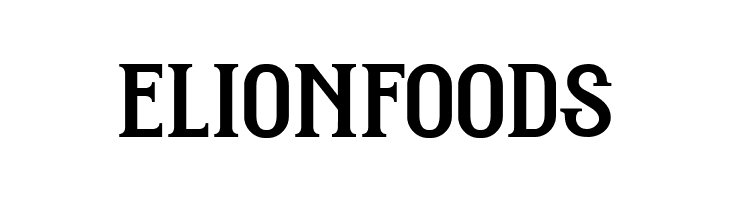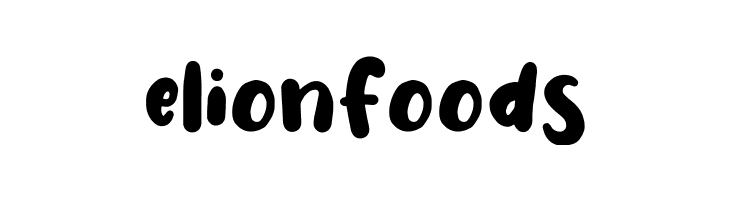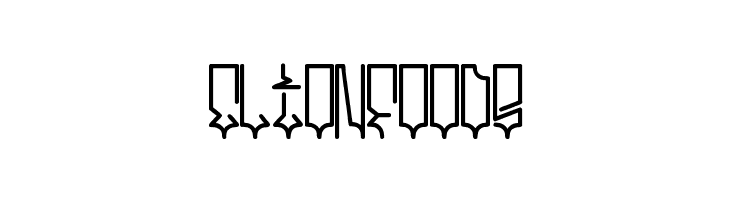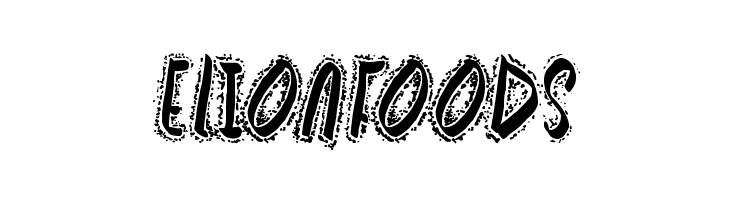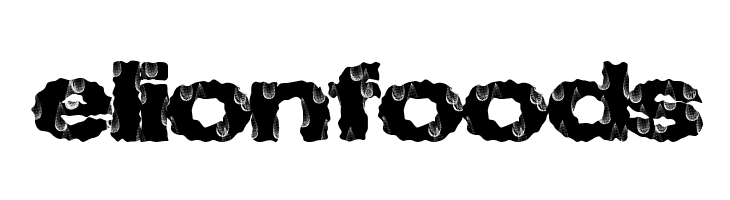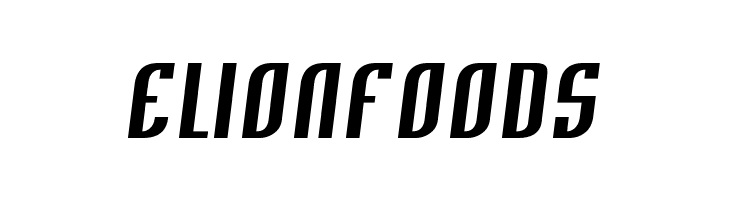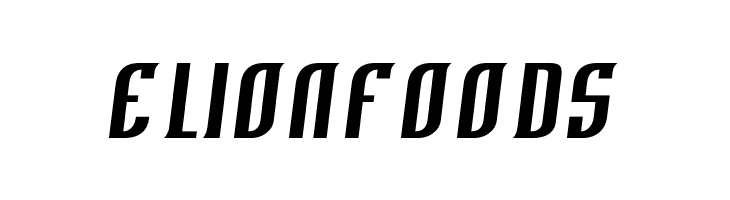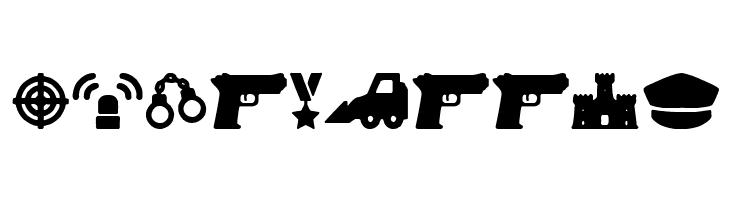
A bold, hand-drawn font with a graffiti-like texture and playful style.
A whimsical and playful font with curly, decorative letterforms.
A whimsical, hand-drawn script font with playful curves and artistic flair.
A bold, industrial font with characters enclosed in square frames connected by chains.
Ornate, heraldic shield-themed decorative font with detailed illustrations.
A bold collection of military-themed icons with consistent style and strong visual impact.
A bold, hand-drawn font with intricate patterns and a playful, artistic style.
A collection of whimsical, character-based designs resembling cartoonish warriors.
A decorative dingbat font of whimsical warrior and tribal characters.
A bold, playful font with thick strokes and rounded edges, ideal for impactful designs.
A playful, bold font with rounded, hand-drawn characters.
A bold, playful handwritten font with rounded strokes and a casual feel.
A bold, hand-painted style font with a lively and energetic appearance.
A bold serif font with sharp serifs and a modern classic appeal.
A whimsical and playful font with decorative swirls and artistic flair.
A decorative typeface featuring intricate patterns and cultural motifs within each character.
A bold, geometric font with rounded edges and a modern, robust appearance.
A bold, geometric font with a modern, futuristic design.
A pixelated, grid-based font with a retro digital aesthetic.
Pixelated, game-inspired decorative bitmap font with quirky icons.
A modern, geometric font with bold, rounded lines and a futuristic aesthetic.
A modern, geometric font with rounded edges and a futuristic style.
A bold, decorative font with vintage and modern elements.
A bold, western-themed font with intricate detailing and a vintage feel.
A decorative, grid-patterned font with an industrial and structured style.
A bold, distressed font with rugged, textured characters.